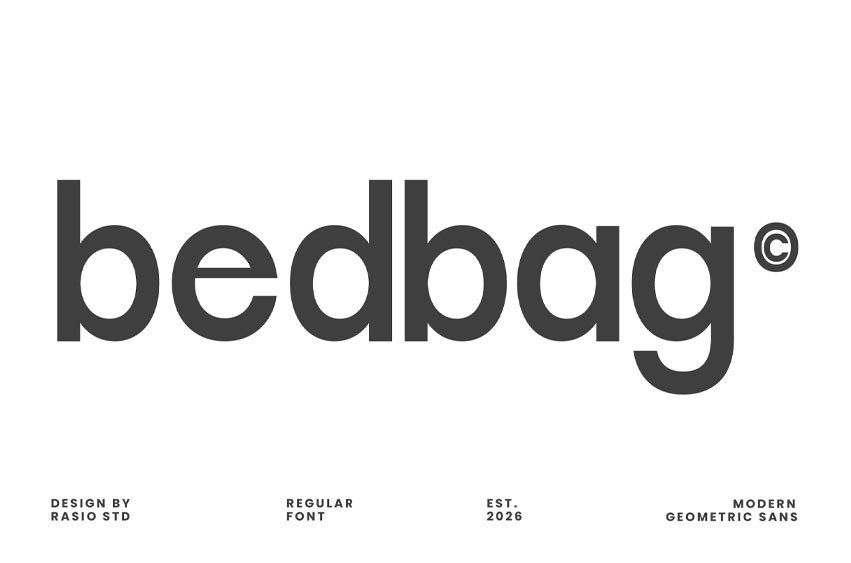
Bedbag Font is a clean modern geometric sans serif font crafted with balanced proportions, smooth curves, and minimalist structure for contemporary visual design. Featuring a neutral geometric appearance with excellent readability, this typeface delivers a professional and refined aesthetic suitable for both display and editorial purposes. Its versatile design works seamlessly across branding, architecture presentations, UI layouts, posters, websites, and modern corporate projects.
Relevance and Use Cases is perfect for modern branding systems, architecture presentations, editorial layouts, UI/UX projects, website headers, minimalist posters, corporate identity designs, and clean visual communication. Its geometric structure and refined readability make it effective for professional marketing materials, business presentations, social media graphics, packaging, and digital interfaces that require a modern and sophisticated appearance.